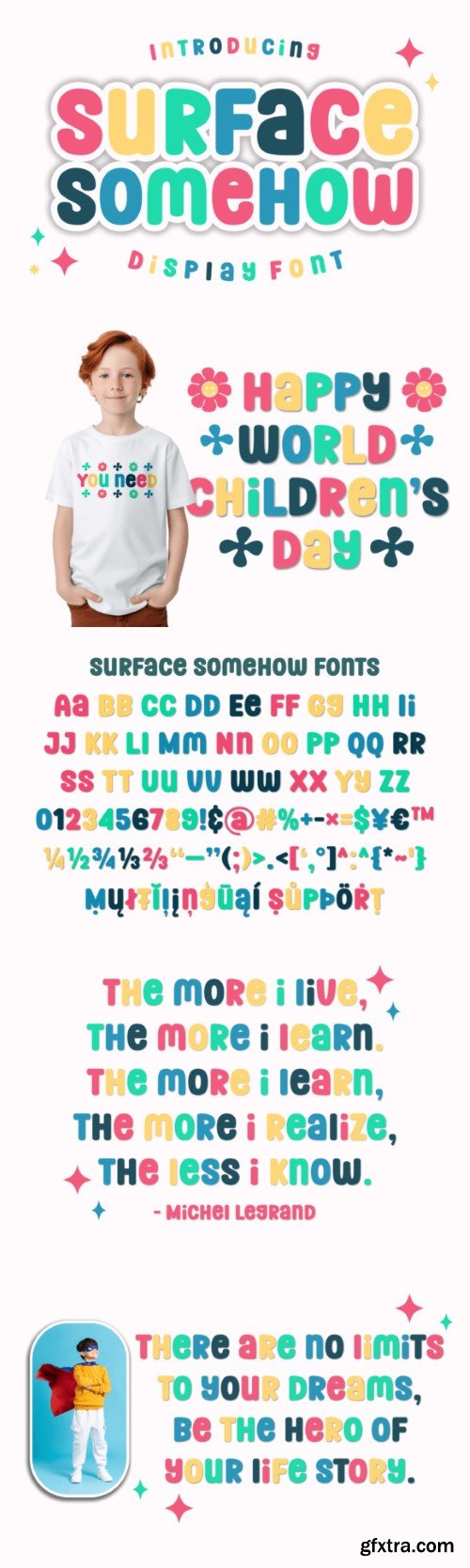
Surface 神奇字体
Surface Somehow is a delightful and lively display font radiating joy and positivity. Its playful curves and bouncy letterforms evoke a sense of cheerfulness and spontaneity, making it perfect for eye-catching headlines, posters, and branding materials. With Surface Somehow, every design project comes alive with vibrant energy and charm.